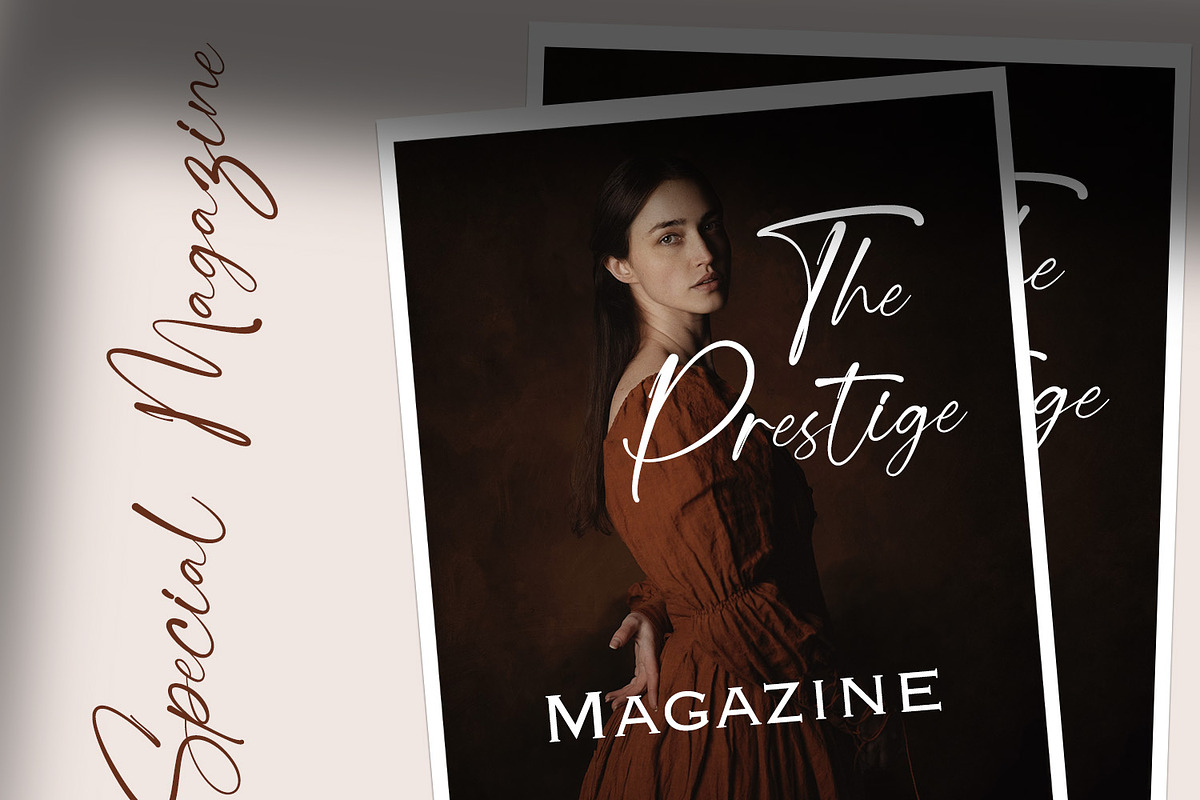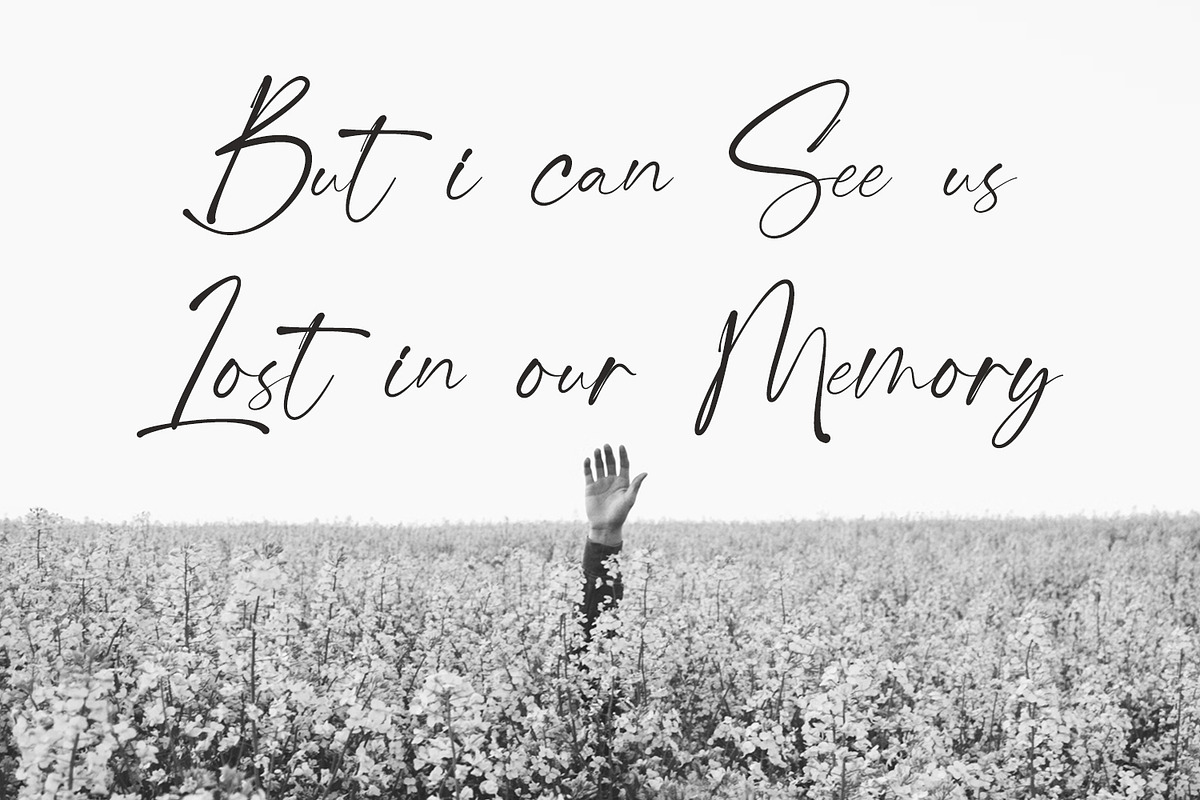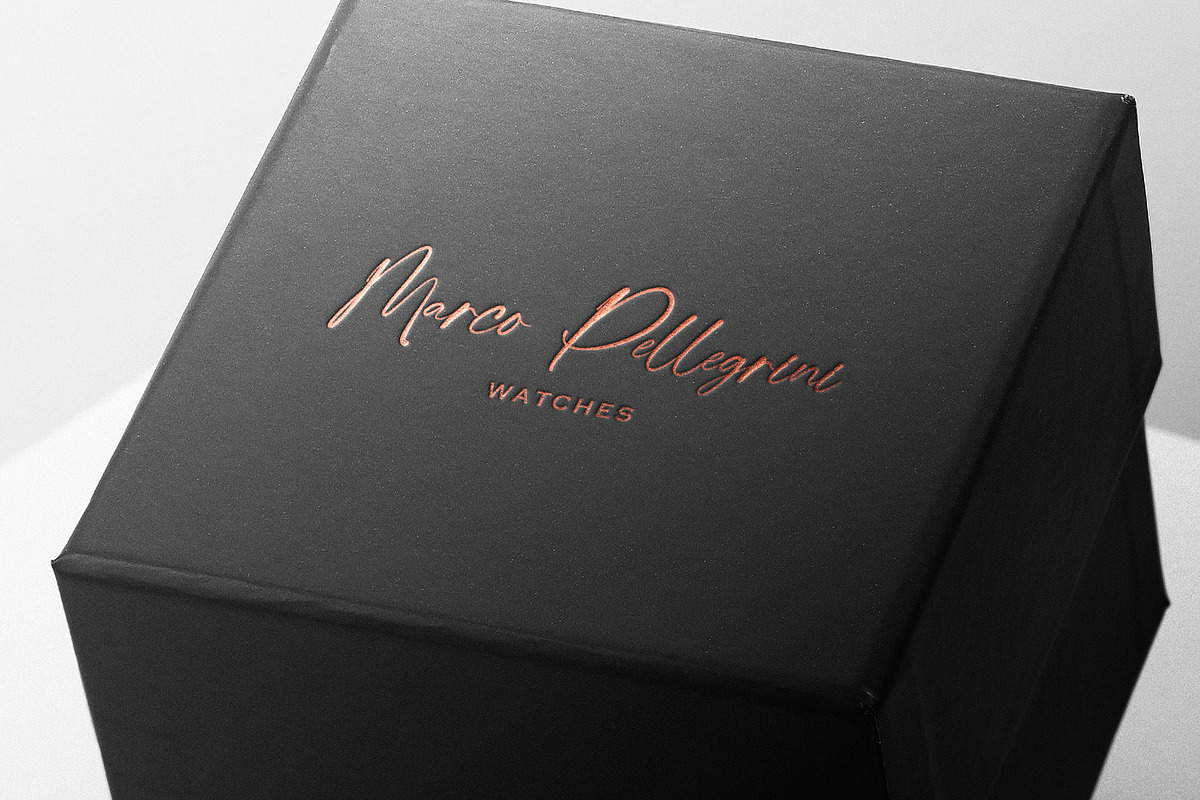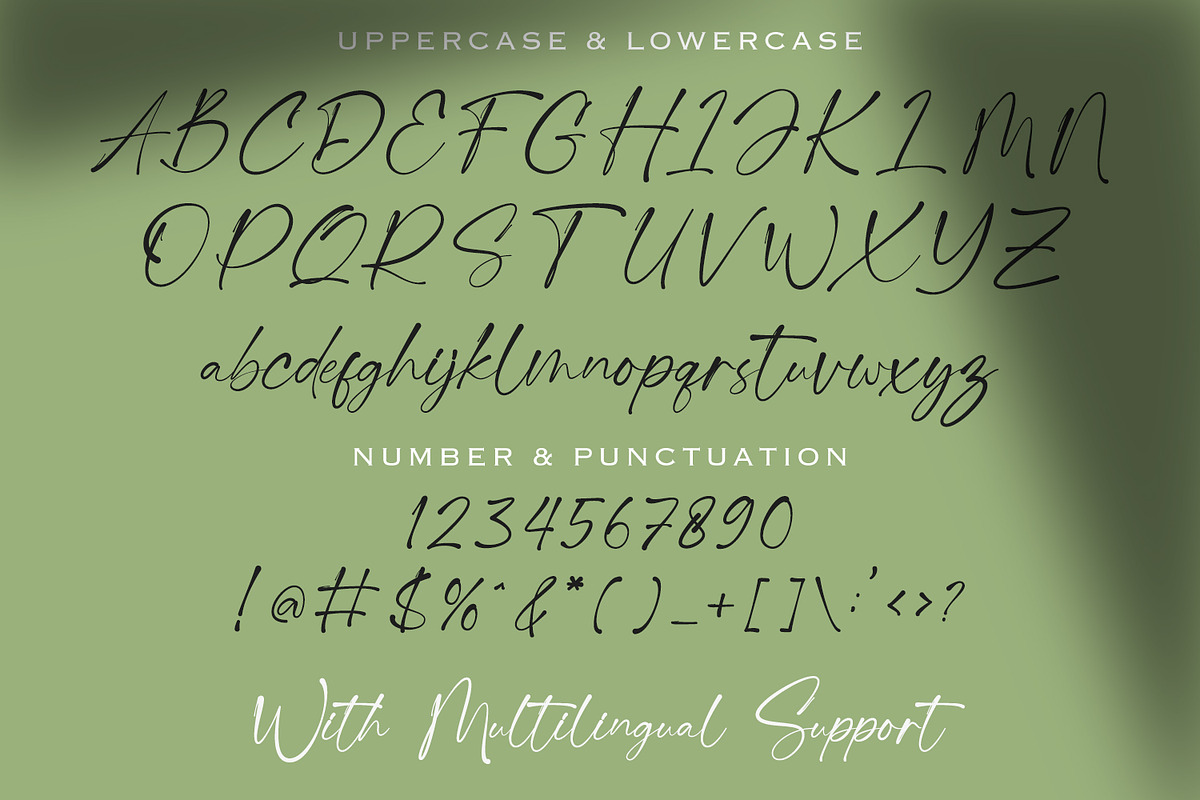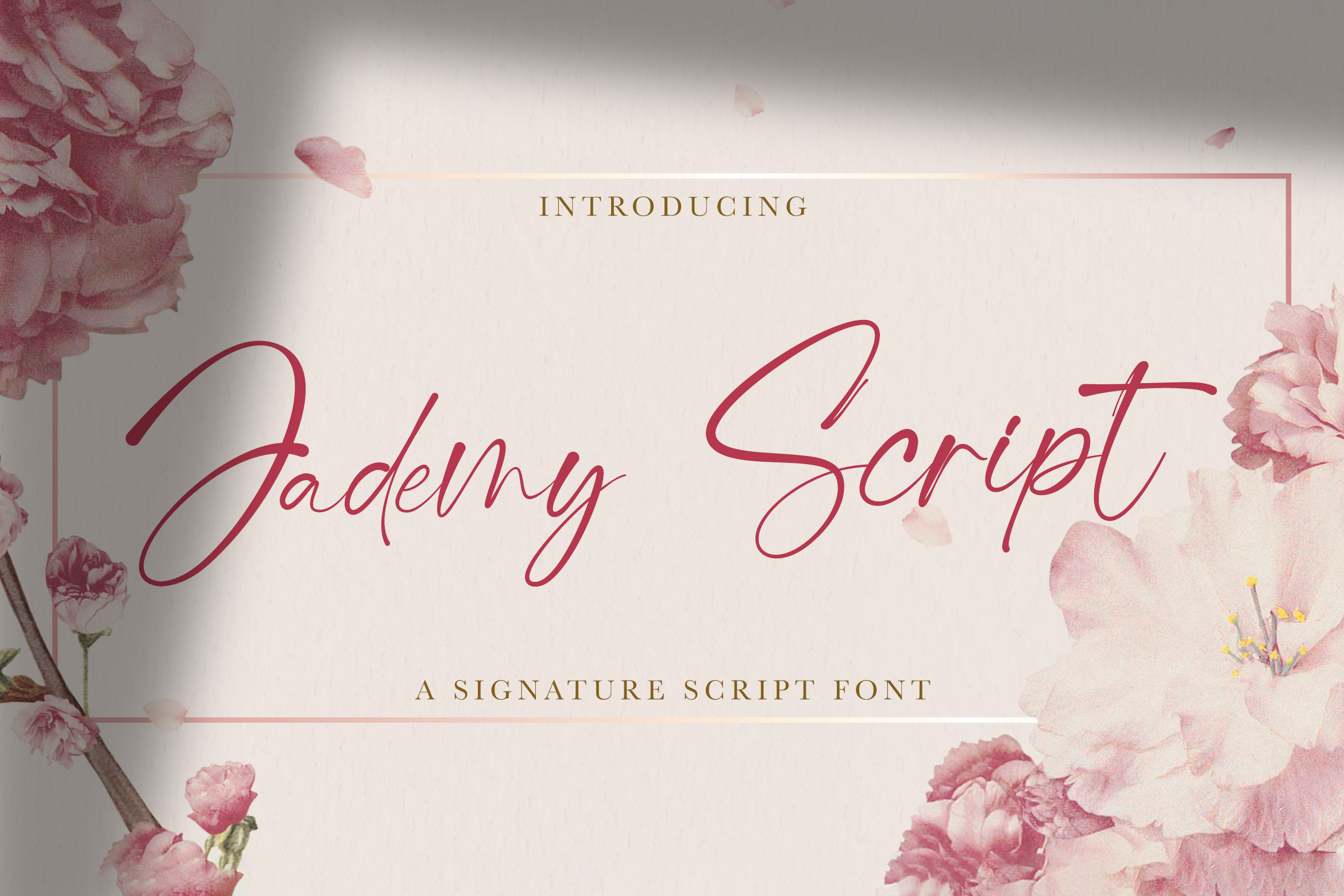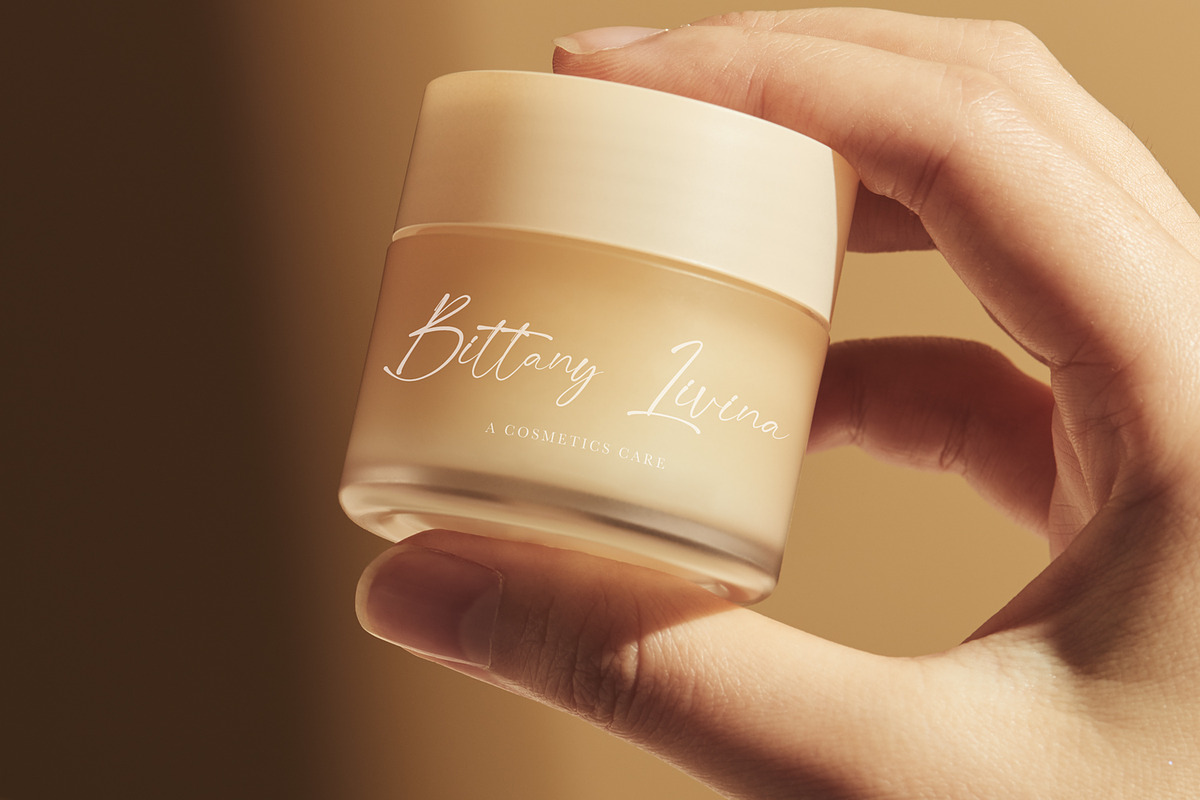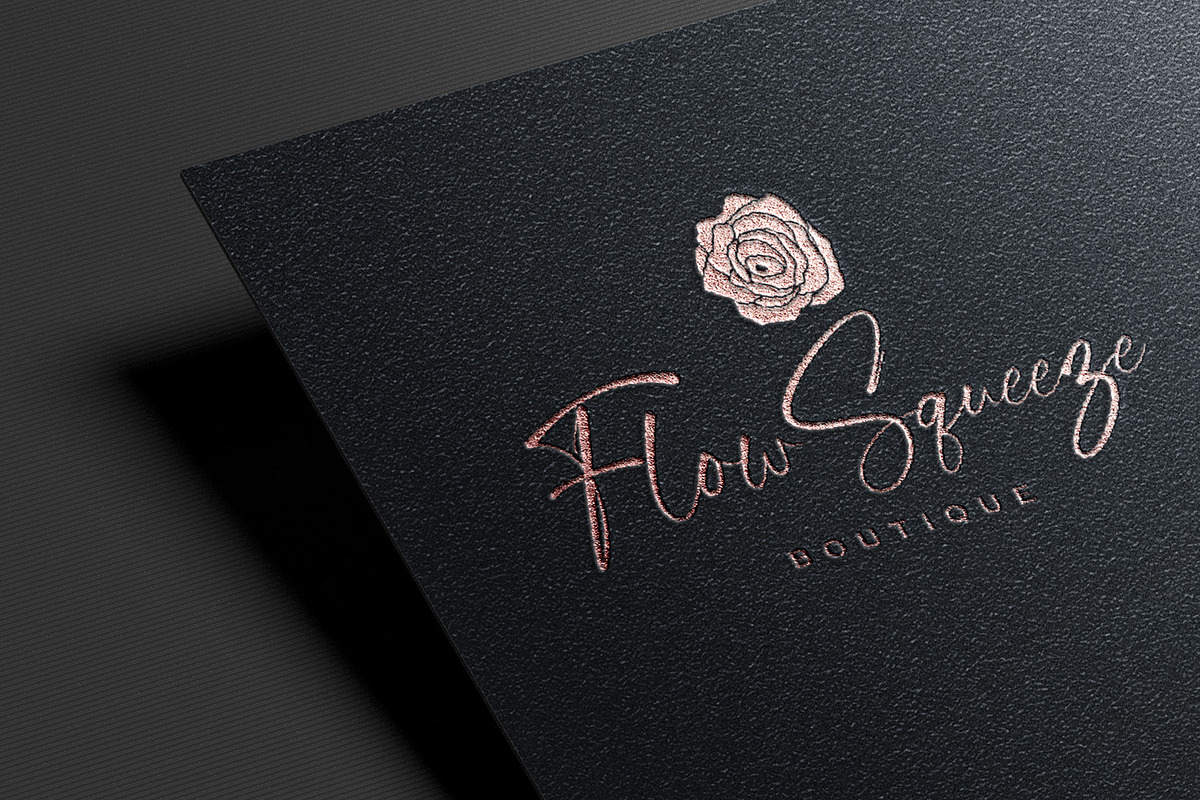
Jademy Script - Signature Font
Jademy Script - Signature Font is an elegant signature script font designed to bring a natural, handwritten feel with a modern and luxurious touch. This font features smooth curves, stylish ligatures, and balanced letterforms, making it perfect for branding projects that require personality and authenticity.
Ideal for logos, fashion brands, beauty and cosmetic packaging, wedding invitations, photography branding, editorial layouts, social media graphics, and premium product designs. Jadeng Script works beautifully in both large headlines and clean minimal layouts, delivering a timeless handwritten aesthetic with professional versatility.
This font includes uppercase and lowercase letters, numbers, punctuation, ligatures, and multilingual support to ensure flexibility across various creative projects.